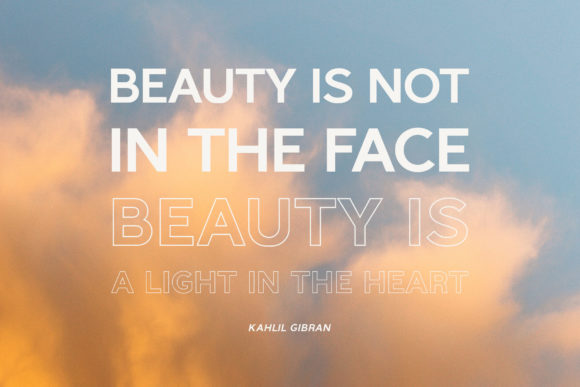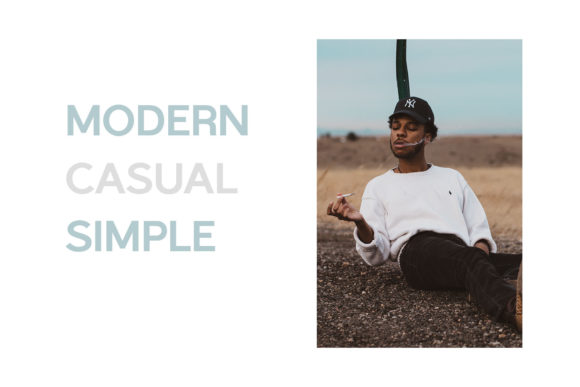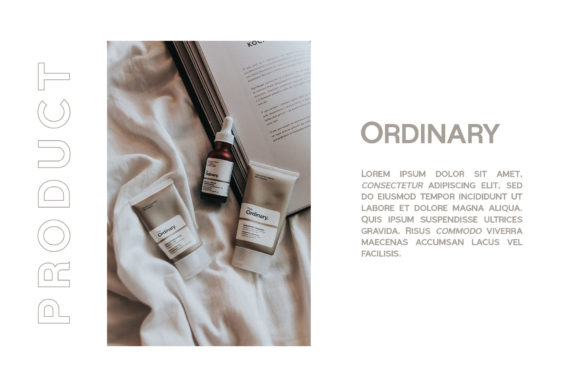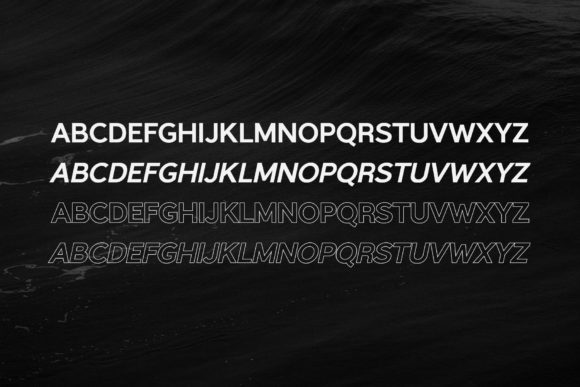
Branden Font: The Ultimate Choice for Clean and Casual Designs
Are you tired of using fonts that are too ornate or over-the-top? Do you want to add a touch of simplicity and elegance to your designs? Look no further than the Branden font, a beautiful sans serif typeface that is perfect for both formal and non-formal designs.
What is Branden Font?
Branden is a simple and casual sans serif font with an undeniably clean feel. With its neat and beautiful arrangement of letters, this typeface will look outstanding in both formal and non-formal designs. The font features a minimalist approach, with clean lines and a lack of embellishments, making it perfect for designs where you want to convey a sense of simplicity and sophistication.
Key Features of Branden Font
- Clean and Simple Design: Branden font features a clean and simple design that makes it perfect for a wide range of designs, from formal documents to casual social media posts.
- Sans Serif Typeface: The font is a sans serif typeface, which means it doesn’t have any decorative flourishes or lines at the ends of the letters.
- Neat and Beautiful Arrangement of Letters: The font features a neat and beautiful arrangement of letters, which makes it easy to read and understand.
- Versatile: Branden font is versatile and can be used in a wide range of designs, from brochures and flyers to social media posts and website content.
Benefits of Using Branden Font
There are many benefits to using Branden font in your designs. Here are a few:
- Easily Readable: The font is easily readable, even at small sizes, making it perfect for body text and other long-form content.
- Professional Look: The clean and simple design of Branden font gives it a professional look that is perfect for formal designs, such as business cards and brochures.
- Flexibility: The font is flexible and can be used in a wide range of designs, from casual social media posts to formal business documents.
- Unique: Branden font is a unique and distinctive typeface that will help your designs stand out from the crowd.
Branden Font Pairings
Branden font pairs well with a wide range of other fonts, including:
- Open Sans: Open Sans is a popular sans serif font that pairs well with Branden font.
- Lato: Lato is a clean and modern sans serif font that pairs well with Branden font.
- Merriweather: Merriweather is a classic serif font that pairs well with Branden font for a classic and elegant look.
Branden font is a beautiful and versatile sans serif typeface that is perfect for a wide range of designs. With its clean and simple design, neat and beautiful arrangement of letters, and flexibility, Branden font is a great choice for designers and crafters looking to add a touch of simplicity and elegance to their designs.